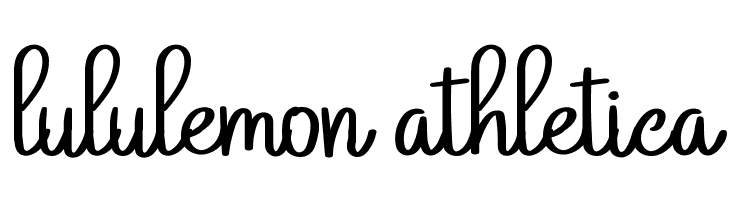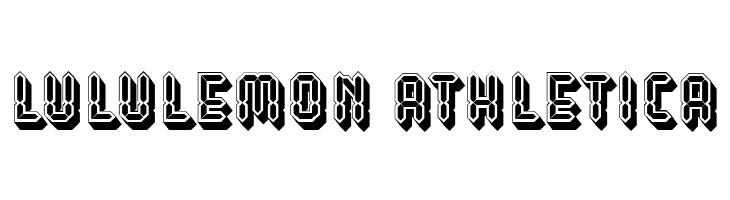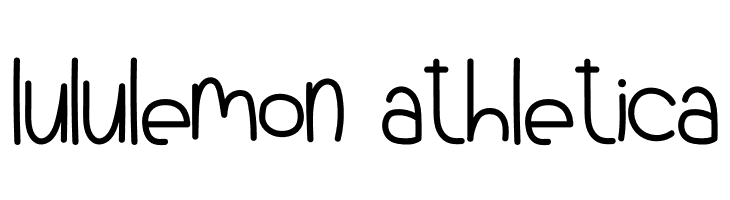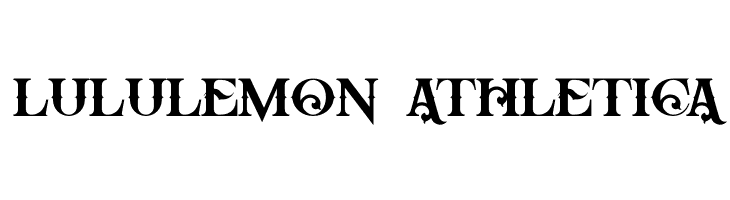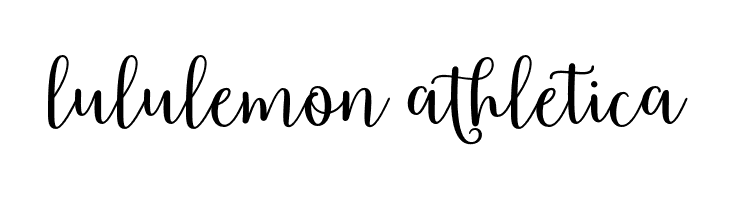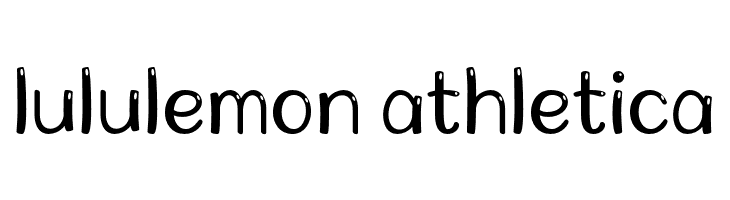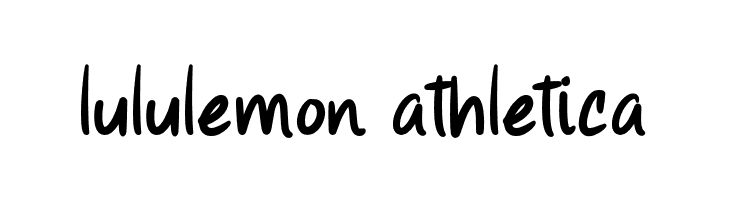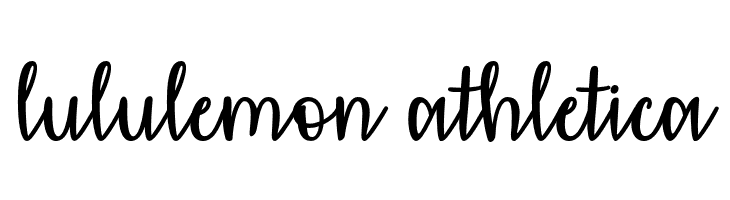
( Fonts by semuthitam - Mokhamad Junaedi - Personal-use only. For commercial use please contact owner. ) A playful, handwritten font with a whimsical and friendly style. Descarcă 62 Descărcări@WebFont
( Fonts by Fontry - M.G. Adkins - Personal-use only. For commercial use please contact owner. ) A bold serif font with high contrast and dramatic strokes, perfect for impactful headlines. Descarcă 77 Descărcări@WebFont
( Fonts by Fontry - M.G. Adkins - Personal-use only. For commercial use please contact owner. ) A bold, geometric font with a strong, uniform appearance. Descarcă 18 Descărcări@WebFont
( Fonts by Fontry - M.G. Adkins - Personal-use only. For commercial use please contact owner. ) A bold, geometric font with a neon-like double-line design. Descarcă 120 Descărcări@WebFont
( Fonts by Fontry - M.G. Adkins - Personal-use only. For commercial use please contact owner. ) A bold, dynamic script font with high contrast and decorative flourishes. Descarcă 31 Descărcări@WebFont
( Fonts by Fontry - M.G. Adkins - Personal-use only. For commercial use please contact owner. ) A bold, classic serif font with strong, authoritative characters. Descarcă 39 Descărcări@WebFont
( Fonts by Fontry - M.G. Adkins - Personal-use only. For commercial use please contact owner. ) A bold, rounded font with a strong and friendly appearance. Descarcă 24 Descărcări@WebFont
( Fonts by Fontry - M.G. Adkins - Personal-use only. For commercial use please contact owner. ) A modern, rounded font with geometric structure and balanced spacing. Descarcă 40 Descărcări@WebFont
( Fonts by Fontry - M.G. Adkins - Personal-use only. For commercial use please contact owner. ) A bold, rounded font with a three-dimensional outline for a playful, modern look. Descarcă 53 Descărcări@WebFont
( Fonts by Fontry - M.G. Adkins - Personal-use only. For commercial use please contact owner. ) A bold, rounded font with a playful and modern style. Descarcă 22 Descărcări@WebFont
( Fonts by Iyon Nurdiansyah - Personal-use only. For commercial use please contact owner. ) A cursive, handwritten-style font with elegant, flowing strokes. Descarcă 53 Descărcări@WebFont
( Fonts by Peter Olexa - Personal-use only. For commercial use please contact owner. ) An ornate and decorative font with intricate swirls and flourishes. Descarcă 39 Descărcări@WebFont
( Fonts by K_IN Studio - Personal-use only. For commercial use please contact owner. ) A playful, bubble-like font with a hand-drawn, whimsical style. Descarcă 32 Descărcări@WebFont
( Fonts by wep - Wahyu Eka Prasetya - Personal-use only. For commercial use please contact owner. ) A playful, handwritten font with bold, rounded strokes and a whimsical style. Descarcă 237 Descărcări@WebFont
( Fonts by Kong Font - fontkong.com - Personal-use only. For commercial use please contact owner. ) A playful, casual handwritten font with smooth, flowing letterforms. Descarcă 466 Descărcări@WebFont
( Fonts by Kong Font - fontkong.com - Personal-use only. For commercial use please contact owner. ) A playful, casual handwritten font with smooth, flowing lines. Descarcă 175 Descărcări@WebFont
( Fonts by Zane Studio - Personal-use only. For commercial use please contact owner. ) A modern, elegant script font with flowing curves and a handwritten feel. Descarcă 39 Descărcări@WebFont
( Fonts by Zane Studio - Personal-use only. For commercial use please contact owner. ) An elegant, flowing script font with smooth, connected strokes. Descarcă 39 Descărcări@WebFont
( Fonts by Eknoji Studio - Personal-use only. For commercial use please contact owner. ) A playful, handwritten script font with lively curves and unique swashes. Descarcă 35 Descărcări@WebFont
( Fonts by Eknoji Studio - www.eknojistudio.com - Personal-use only. For commercial use please contact owner. ) A playful and whimsical script font with flowing, interconnected letters. Descarcă 1808 Descărcări@WebFont
( Fonts by Nick Curtis - Personal-use only. For commercial use please contact owner. ) A bold, inline font with geometric and playful characteristics. Descarcă 82 Descărcări@WebFont
( Fonts by Nick Curtis - Personal-use only. For commercial use please contact owner. ) A bold, geometric font with playful and dynamic character designs. Descarcă 69 Descărcări@WebFont
( Fonts by Wino S Kadir - weknow - www.revolge.com/shop/weknow/ - Personal-use only. For commercial use please contact owner. ) A bold, geometric font with a futuristic, arcade-inspired style. Descarcă 825 Descărcări@WebFont
( Fonts by weknow - Wino S Kadir - Personal-use only. For commercial use please contact owner. ) A bold, futuristic font with sharp angles and geometric design. Descarcă 35 Descărcări@WebFont
( Fonts by weknow - Wino S Kadir - Personal-use only. For commercial use please contact owner. ) A bold, italicized font with a retro, arcade-inspired design. Descarcă 35 Descărcări@WebFont
( Fonts by twinletter - Rozikan - Personal-use only. For commercial use please contact owner. ) A bold, playful font with rounded edges and a retro feel. Descarcă 66 Descărcări@WebFont
( Fonts by Kong Font - https://fontkong.com/ - Personal-use only. For commercial use please contact owner. ) A bold, geometric font with a futuristic, arcade-inspired design. Descarcă 152 Descărcări@WebFont
( Fonts by Kong Font - https://fontkong.com/ - Personal-use only. For commercial use please contact owner. ) A bold, italicized font with a futuristic and dynamic style. Descarcă 130 Descărcări@WebFont